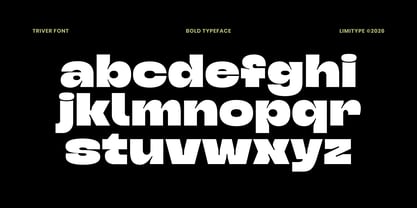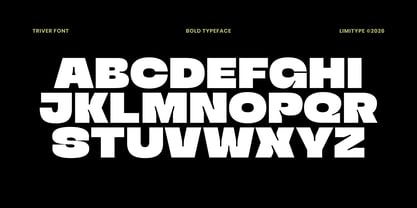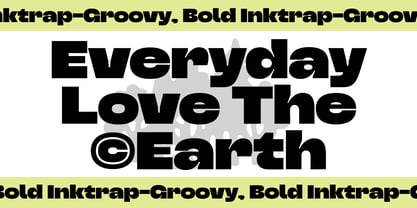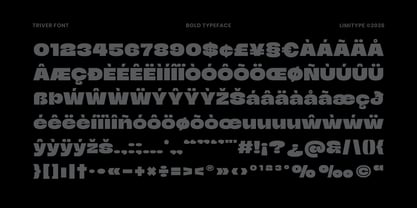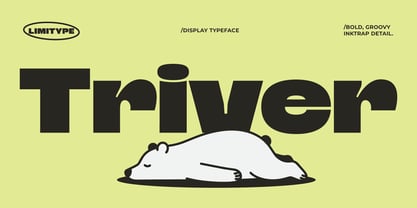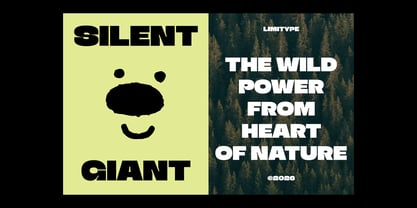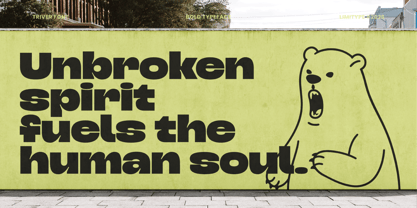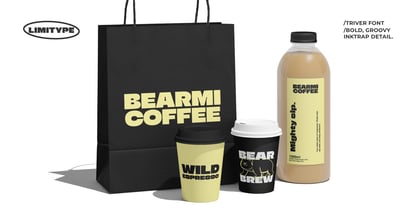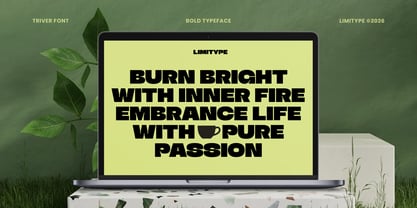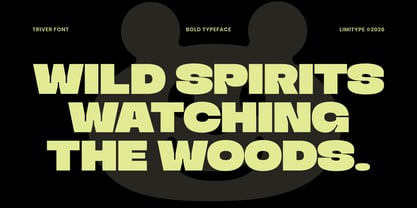
Triver
por limitype
A família de fontes Triver foi desenhada por Muhammad Muammar, Furqan Sudirman e publicada pela limitype. Triver contém 1 estilos. Saiba mais sobre esta família
Triver is a bold inktrap display font featuring thick, strong, and rounded letterforms with distinctive cut in details. Its bold shapes, playful curves, and groovy proportions create a fun retro personality with a strong visual impact. Perfect for bold headlines, posters, logos, branding, packaging, editorial designs, and eye catching visual identities.
Designers: Muhammad Muammar, Furqan Sudirman
Fundição: limitype